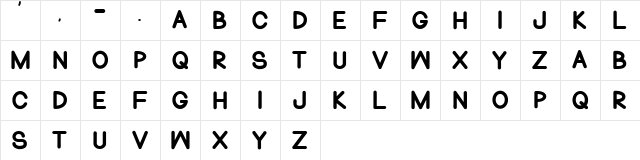
Normal Sometimes Regular
Foundry: Font Monger
Designer: Chris Vile
Design Context for Normal Sometimes
Normal Sometimes is a composed and adaptable typeface that performs quietly and consistently across a wide range of design contexts.